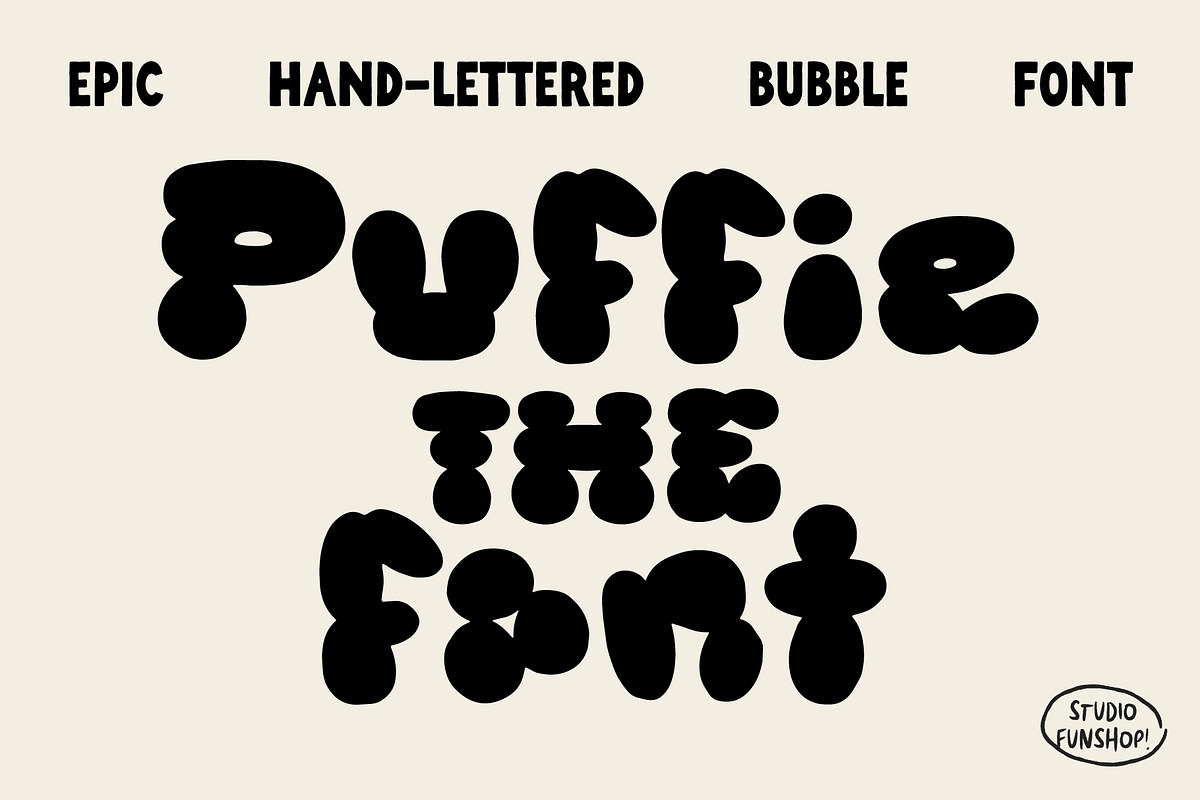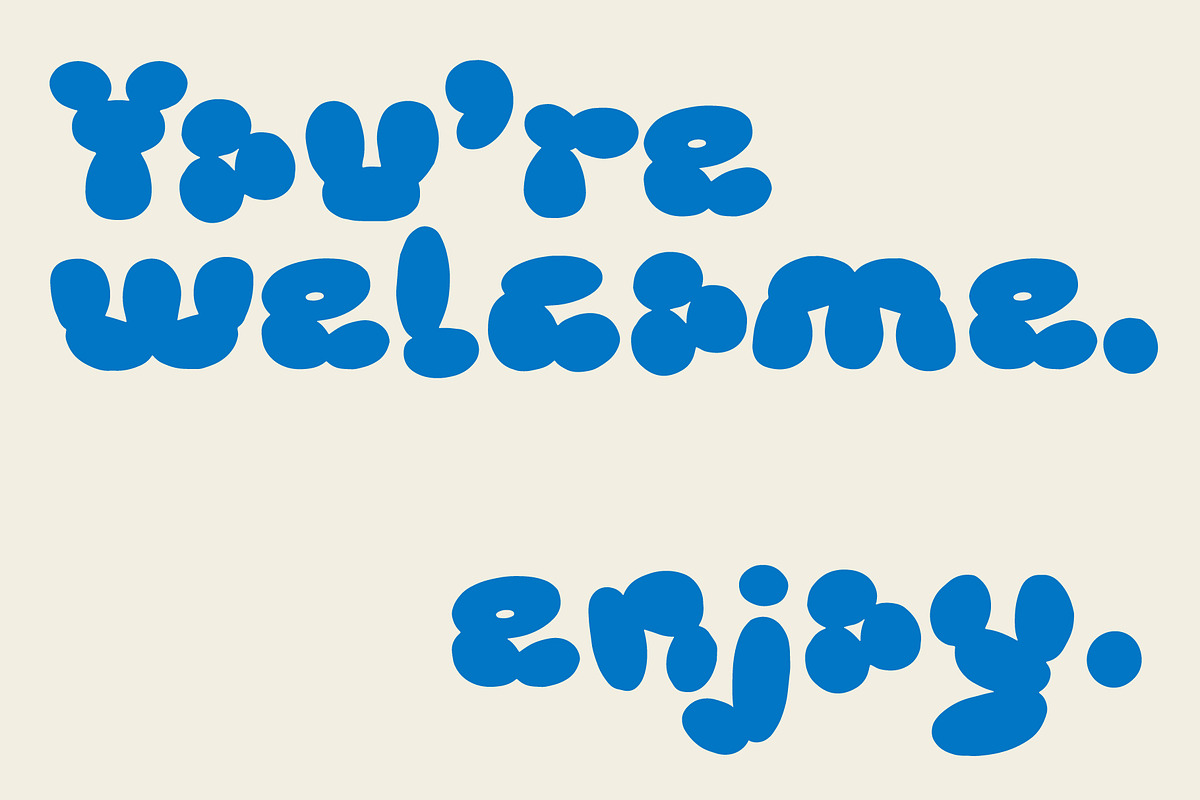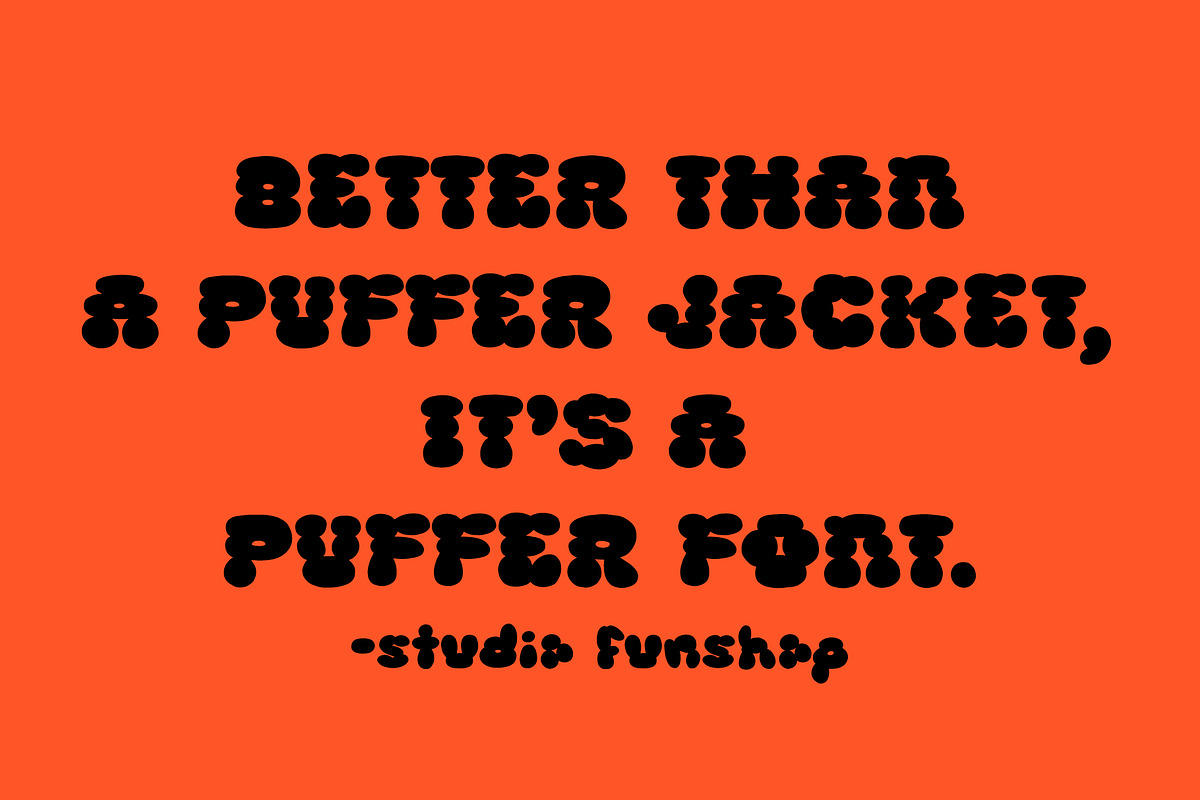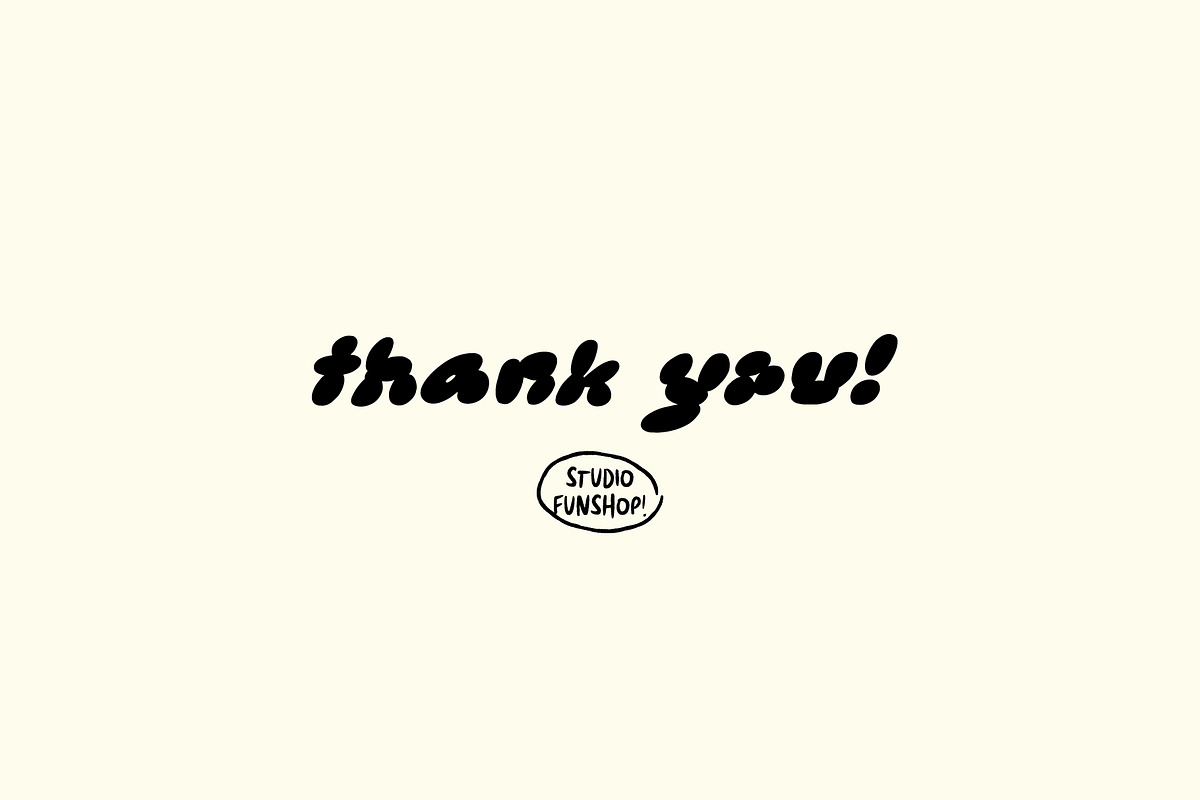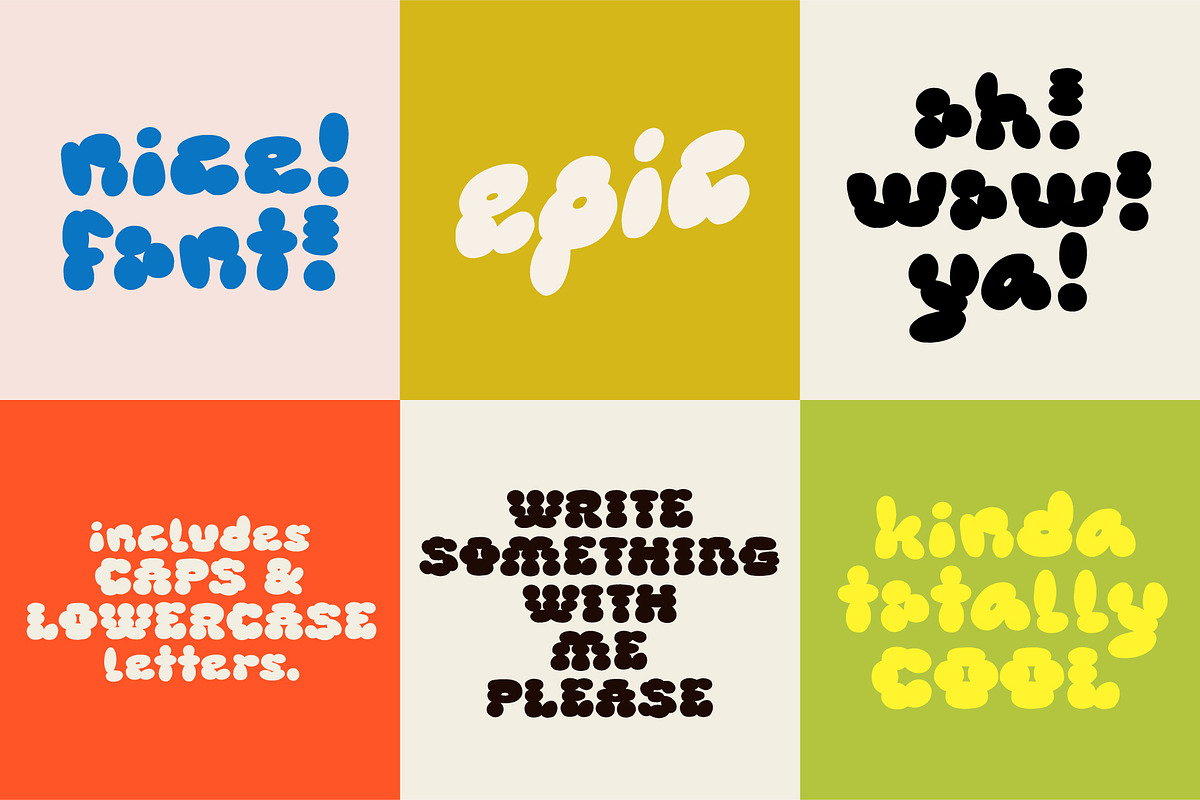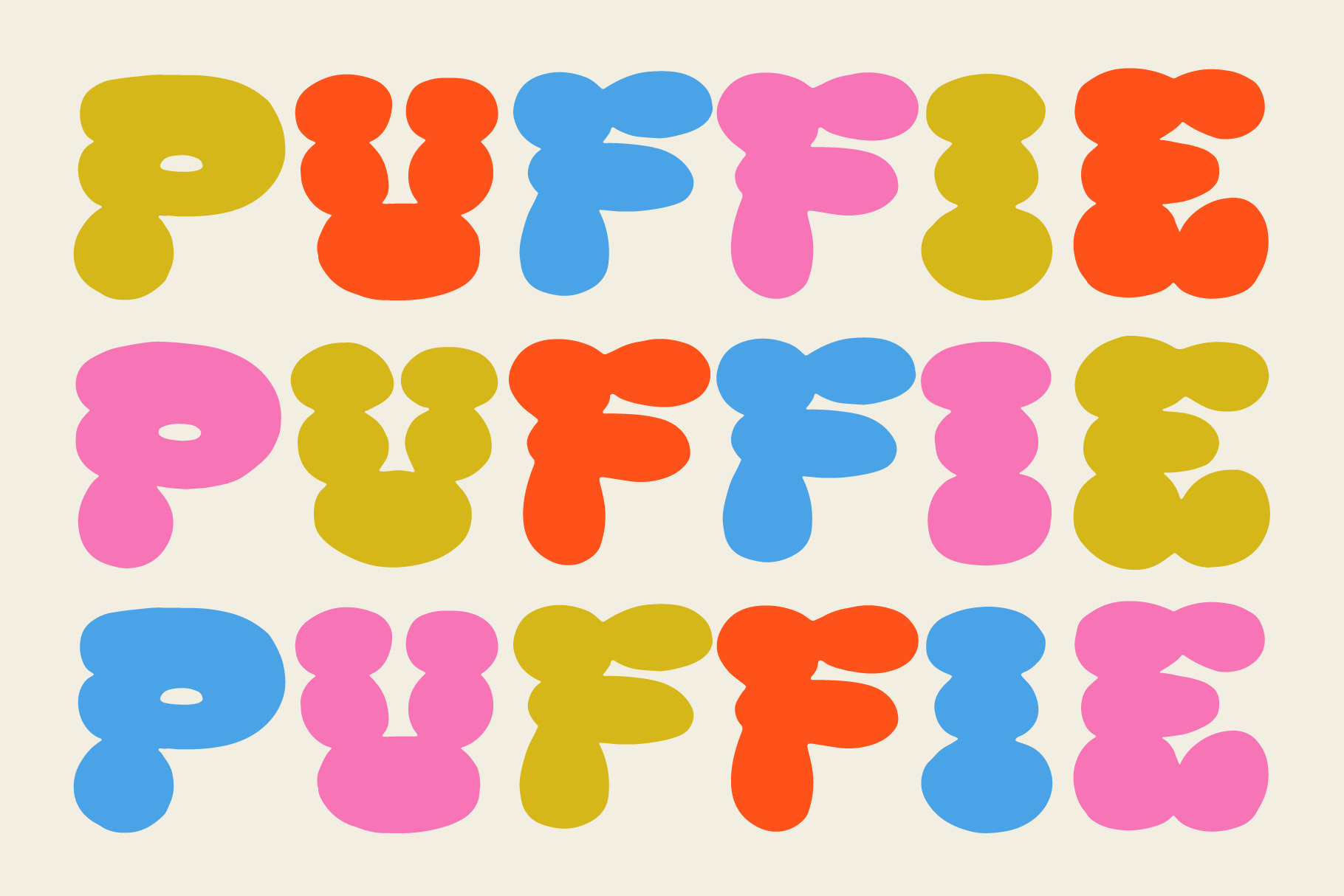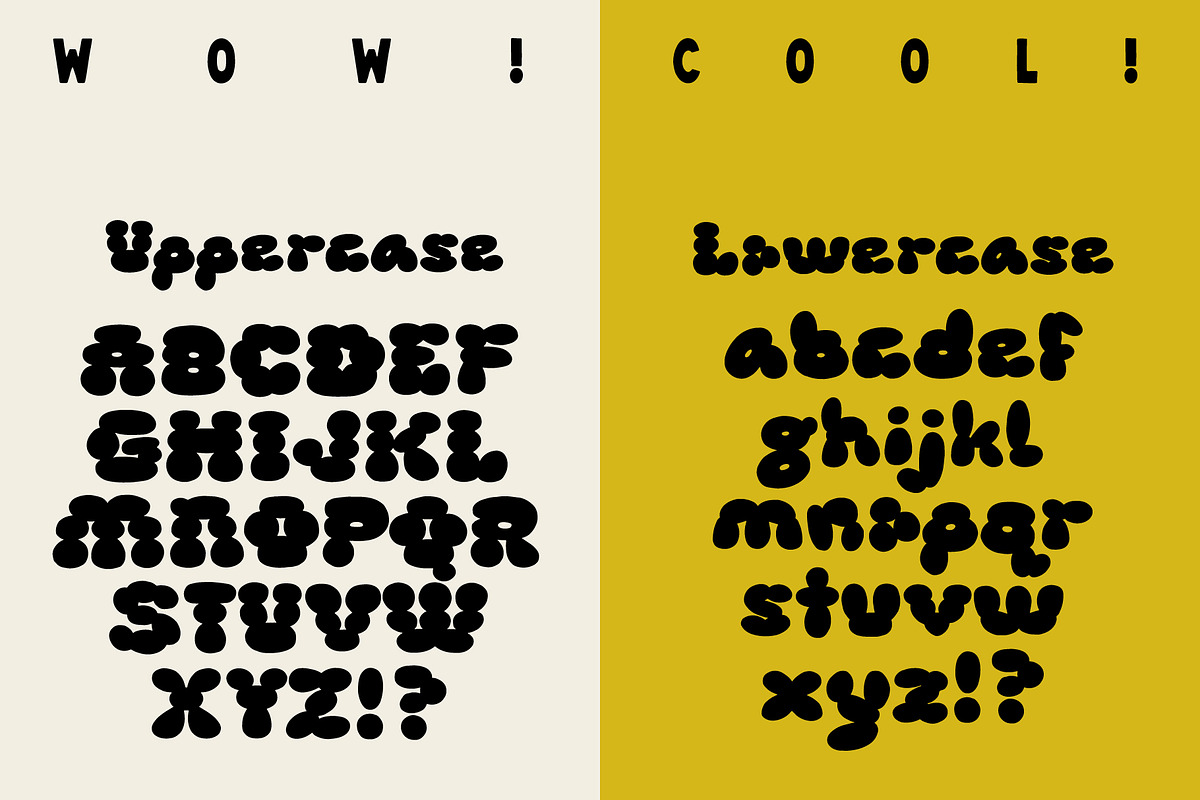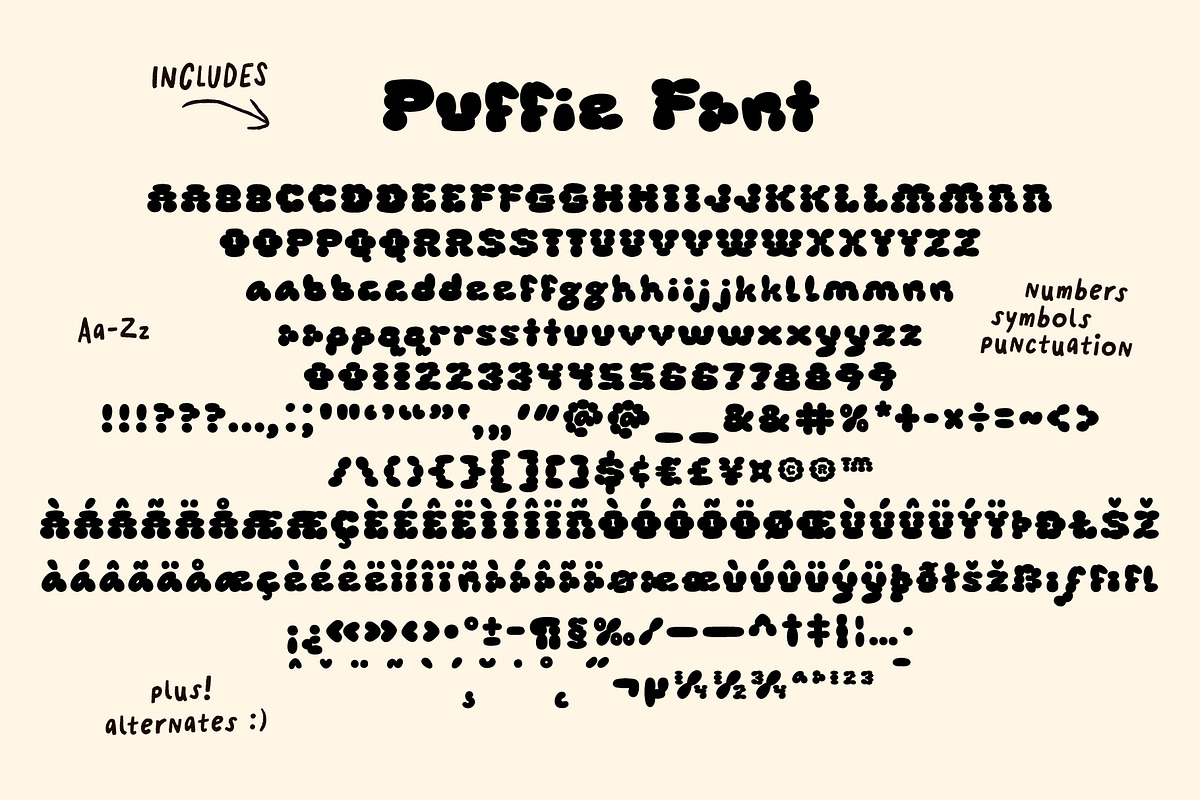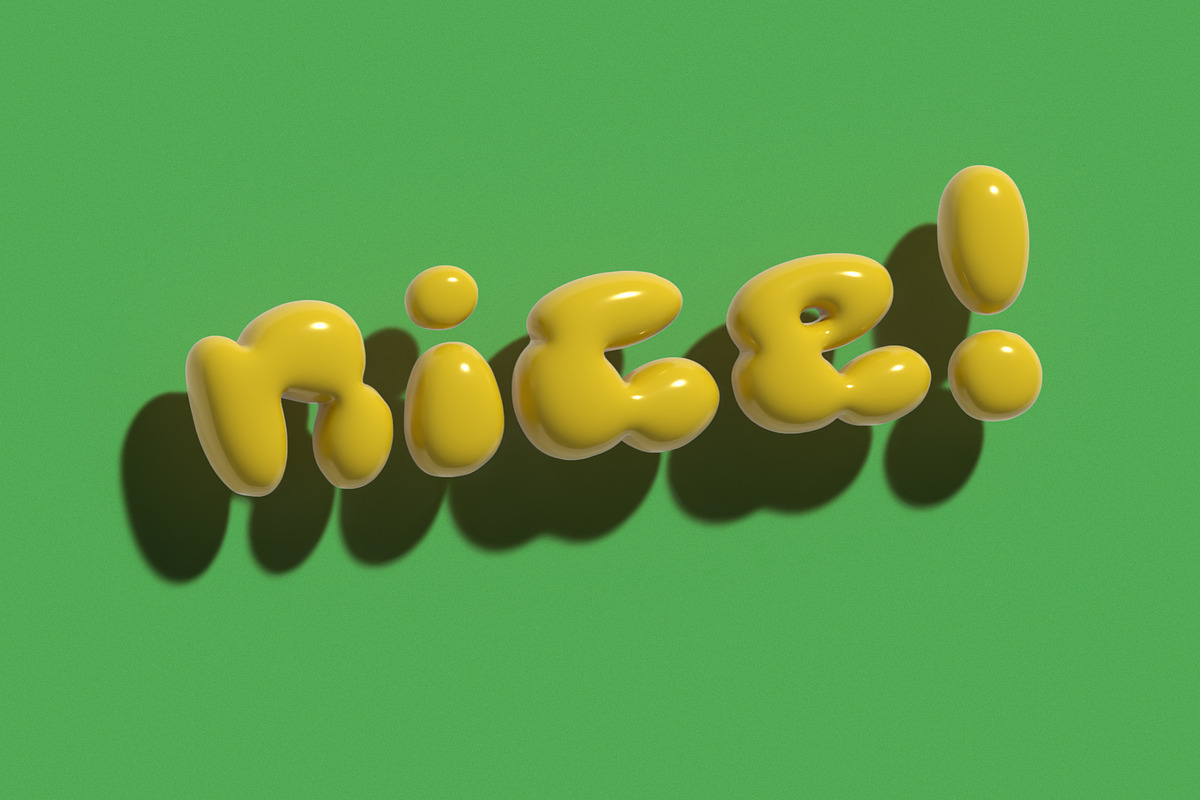
Puffie - Unique Bubble Font
Puffie Font A hand-lettered bubble font for epic unique awesome projects. Plus, Puffie includes alternates for extra handmade goodness!
Also great for logos, quotes, art, branding and more! Enjoy!
What's in the font? Uppercase and Lowercase Aa-Zz! Numbers! Symbols! Punctuation! Alternates! Some Multi-lingual Glyphs (see slides!)